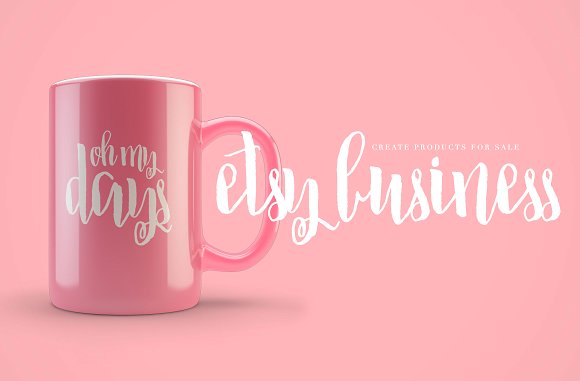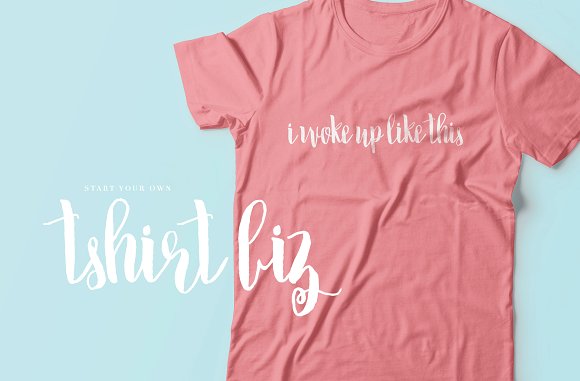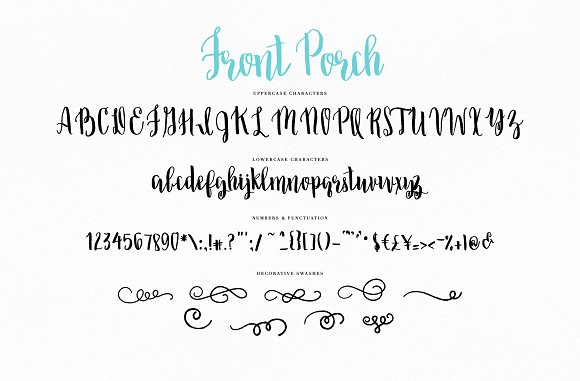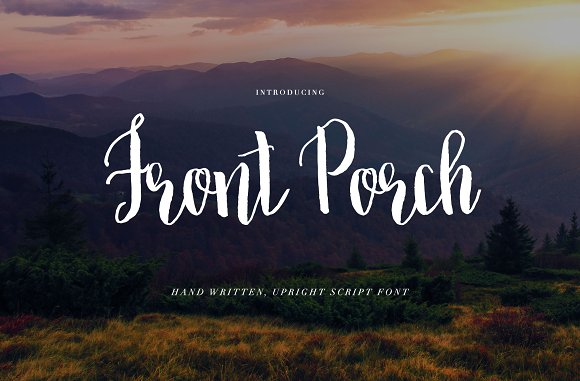
Brush Script Font: Front Porch
Front Porch is a rough brush script font that was hand written and has an upright feel to it. This font is perfect for accent words on wedding invitations, blog graphics, and your branding. Feel free to use this font design for your commercial use needs.